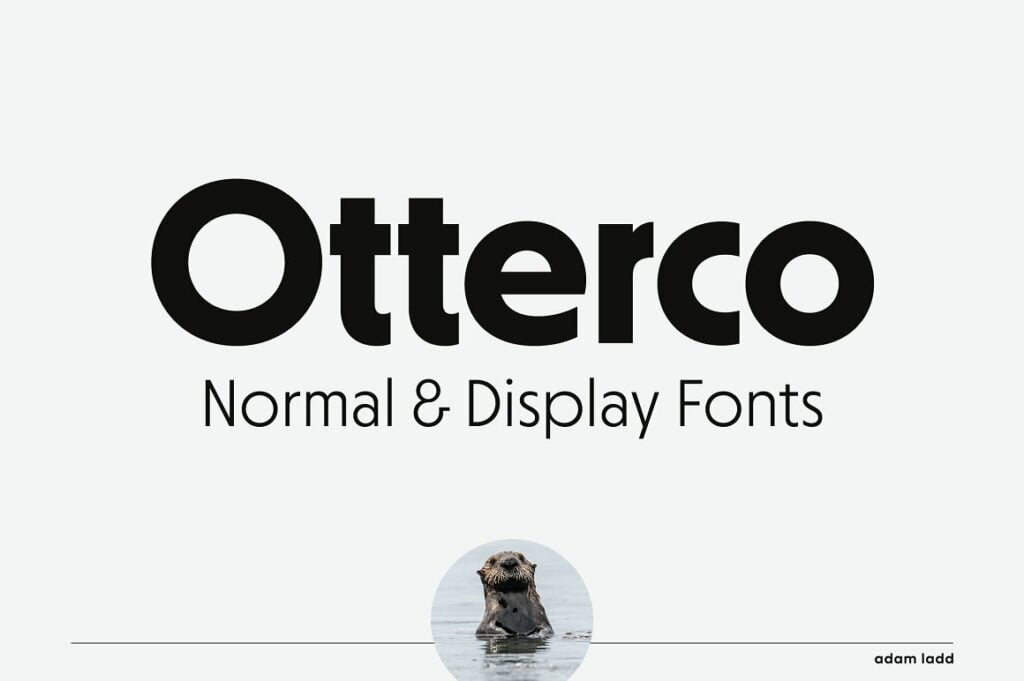
Otterco Font
Otterco is a geometric sans-serif font family with varied round and narrow characters. Blending a touch of retro and modern qualities, this typeface is clean and neutral but not boring. It’s professional yet unique and fun. The contrast in character widths creates a distinct visual rhythm and the vertical cut terminals keep it consistent, strong, and sharp looking. Constructed with a large x-height and low stroke contrast, it can fit a variety of applications.
Coming in both Normal and Display families, the fonts can be used for even more settings and tone of voice. The Normal design has a little less width contrast between characters and looser spacing good for both small and large text. While the Display design has more character width contrast and tighter spacing good for larger, attention-getting text.
With 32 total fonts in thin through extra bold weights (plus italics), Otterco is well suited as both a versatile text and display font for branding, advertising, packaging, headlines, magazines, websites, logo designs, and more.